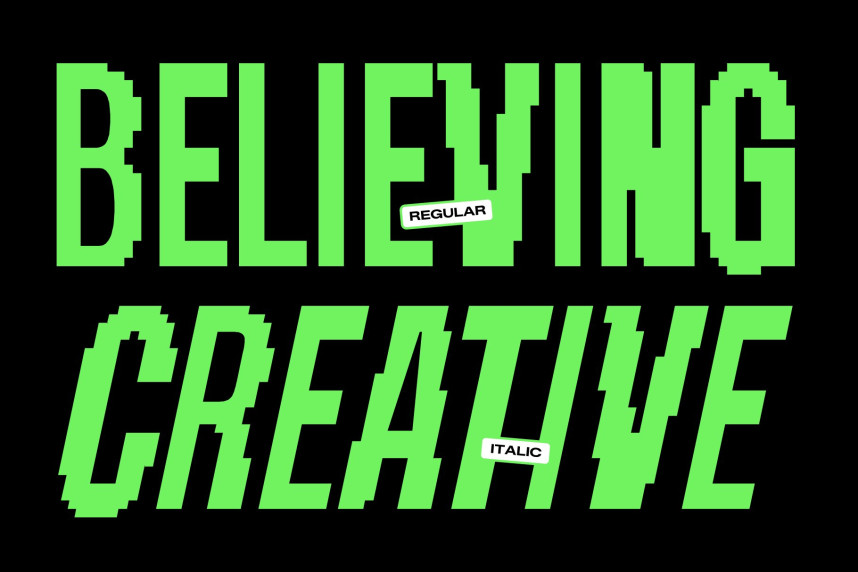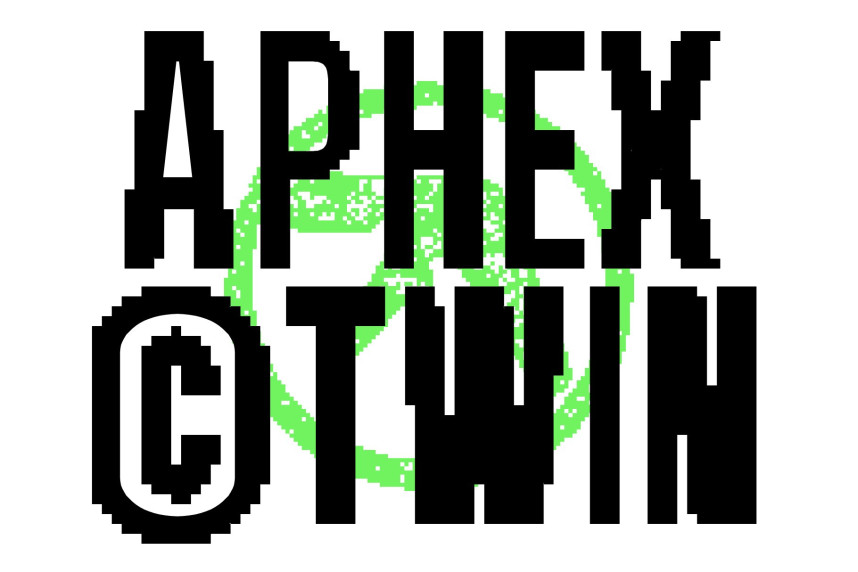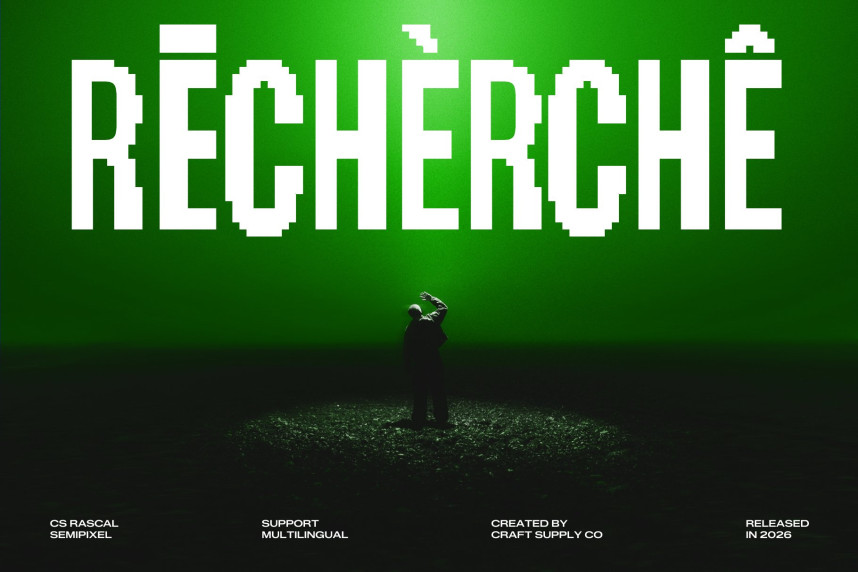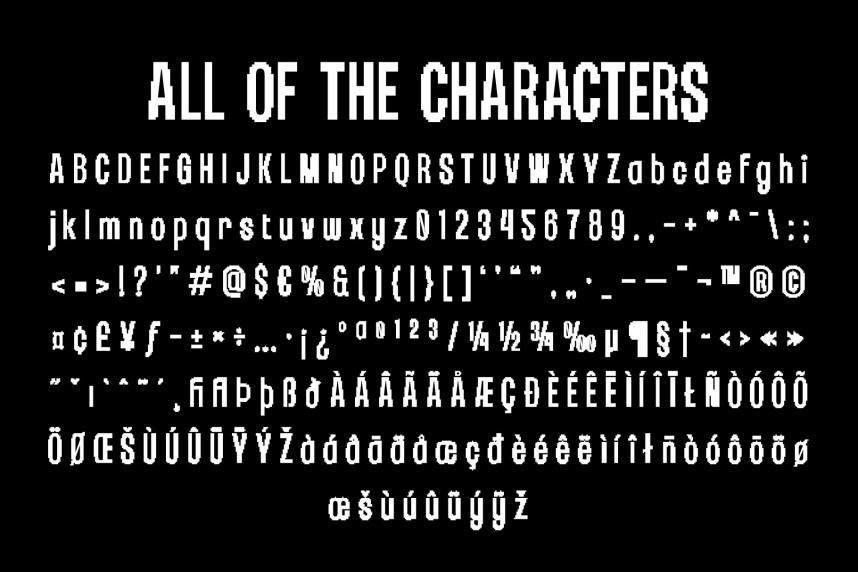
CS Rascal Semipixel Font
CS Rascal Semipixel Font – Condensed Display Font with Modern Edge
Condensed Display Font for Contemporary Impact
This is a modern condensed display font designed to deliver maximum impact in limited space. Its streamlined proportions and confident structure transform headlines into bold visual statements while maintaining excellent readability. Created for designers who demand typography that feels energetic, efficient, and distinctly contemporary, this typeface brings a strong visual presence to every composition.